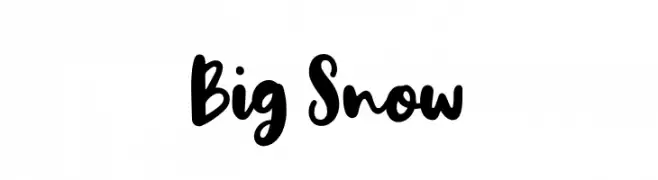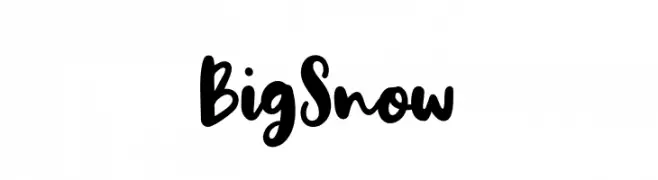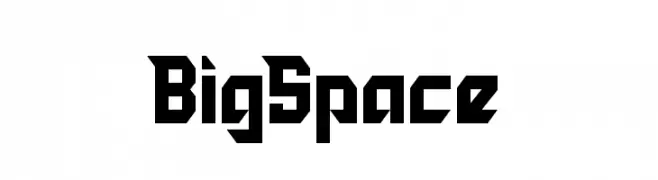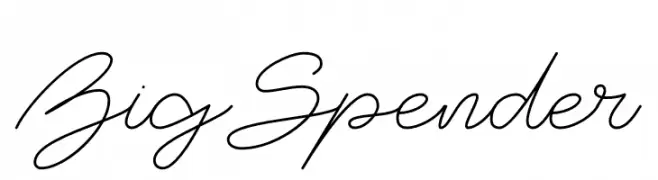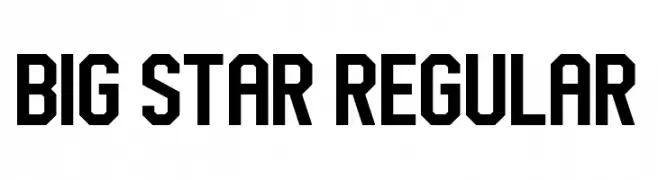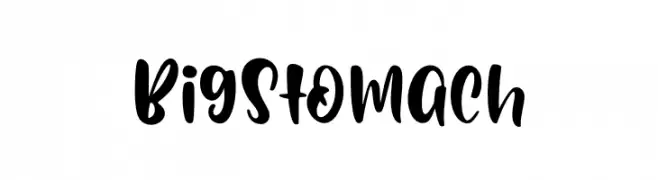
A bold, modern sans-serif font with clean lines and strong presence.
A bold, playful script font with a handwritten style.
A bold, playful script font with rounded strokes and smooth curves.
A bold, geometric font with a futuristic and angular design.
A refined script font with fluid, connected strokes and a sophisticated style.
A bold, geometric font with strong, angular lines and a modern aesthetic.
A bold, playful script font with a handwritten style.
A dynamic, elegant script font with a flowing, cursive design.
A bold, slab serif font with a strong, structured appearance.